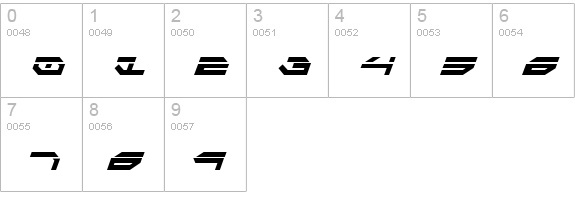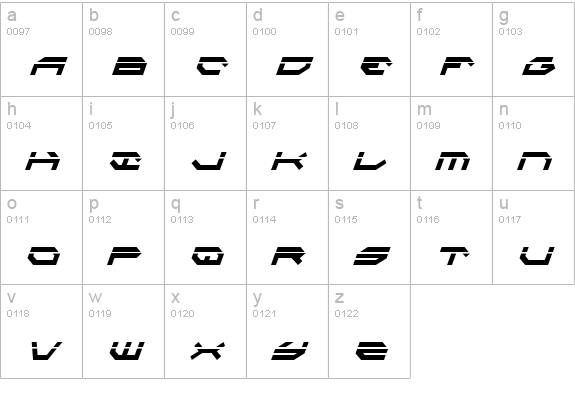
Taskforce Laser CondItal font is a striking and futuristic typeface designed for modern and edgy designs. Its sharp lines and condensed structure give it a bold and dynamic appearance, making it perfect for projects that require a strong visual impact. The sleek and contemporary look of Taskforce Laser CondItal font makes it ideal for use in branding, advertising, and digital media. Best of all, Taskforce Laser CondItal font is available for free download at FontsMarket.com. This means that you can easily access this unique and versatile font to enhance your creative projects without any cost. Whether you are a designer, artist, or hobbyist, Taskforce Laser CondItal font is a valuable addition to your font collection. Download it today and unleash its powerful aesthetic potential in your next project!